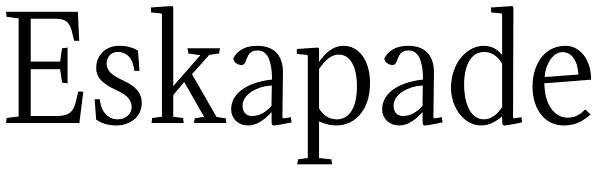
Eskapade
The Eskapade family is the result of research confronting Roman and German blackletter forms, mainly fraktur letters. The idea is to adapt these broken forms for a contemporary use instead of creating a faithful revival of a historical typeface. On...
Eskapade
Eskapade Italic
Eskapade Fraktur Italic
Eskapade Fraktur